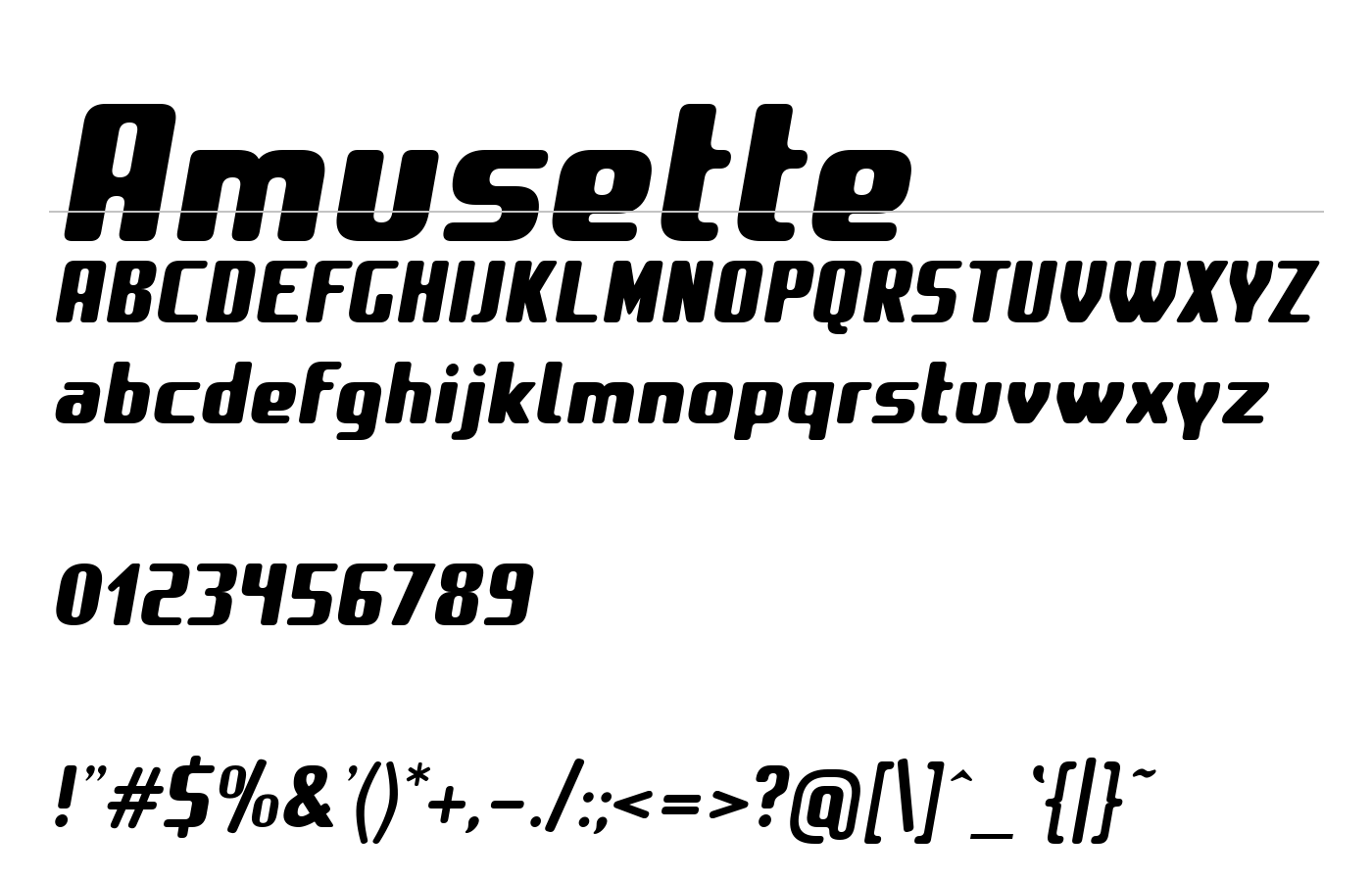
Amusette is a bold, condensed sans serif font with a strong, sporty character and a slight italic slant that adds dynamic energy to its geometric, rounded letterforms. Its uniform stroke weight and tight spacing give it a modern, assertive look, making it ideal for eye-catching headlines, branding, and packaging that aim to convey confidence and movement. This typeface works especially well in contexts where a sleek, energetic, and contemporary feel is desired.
Amusette Font